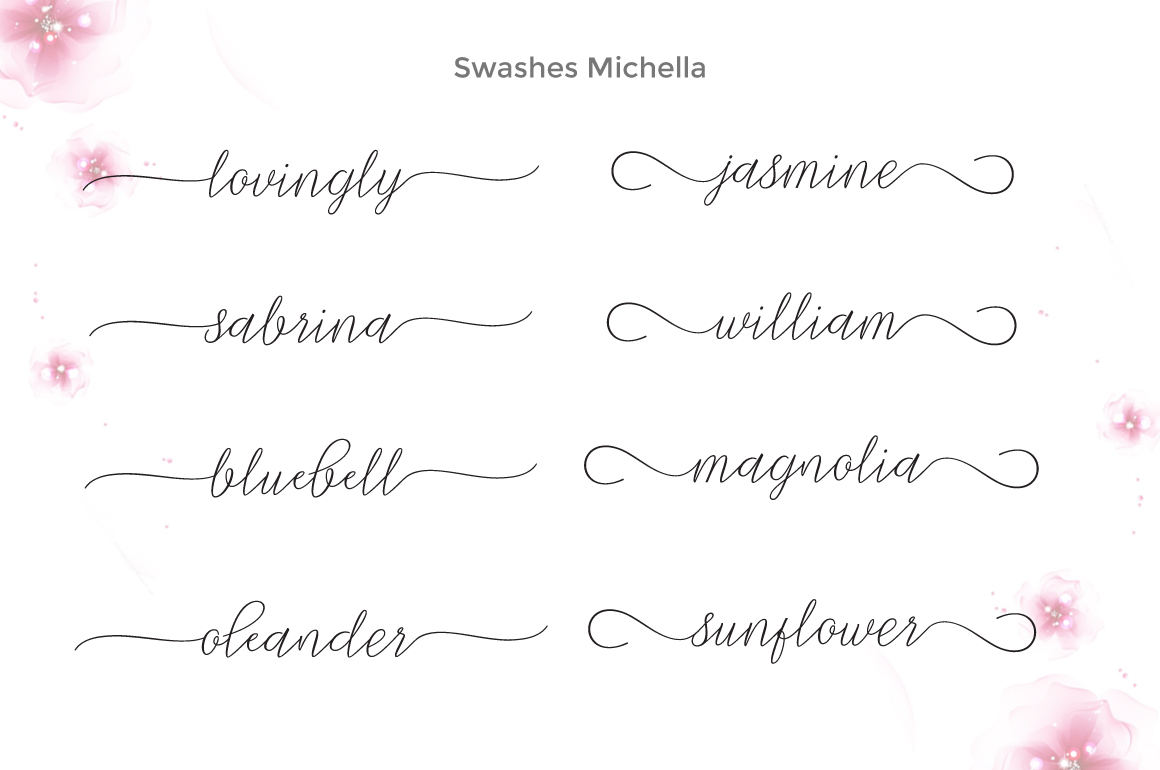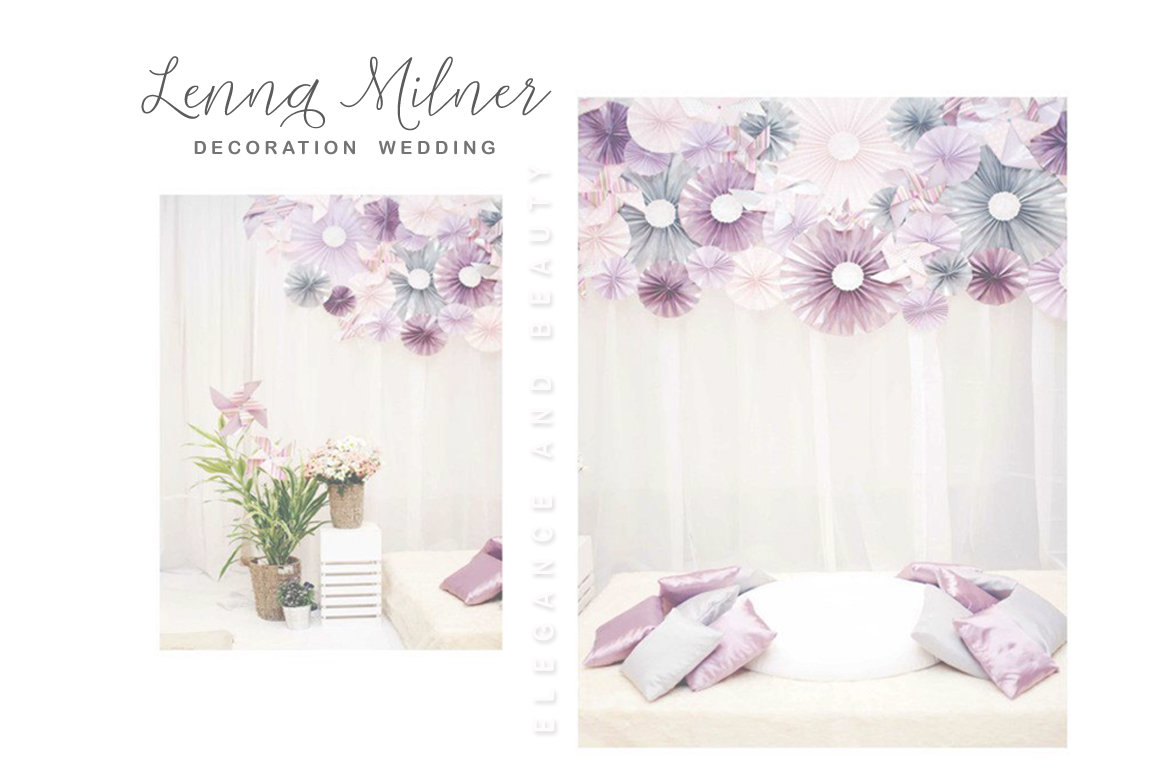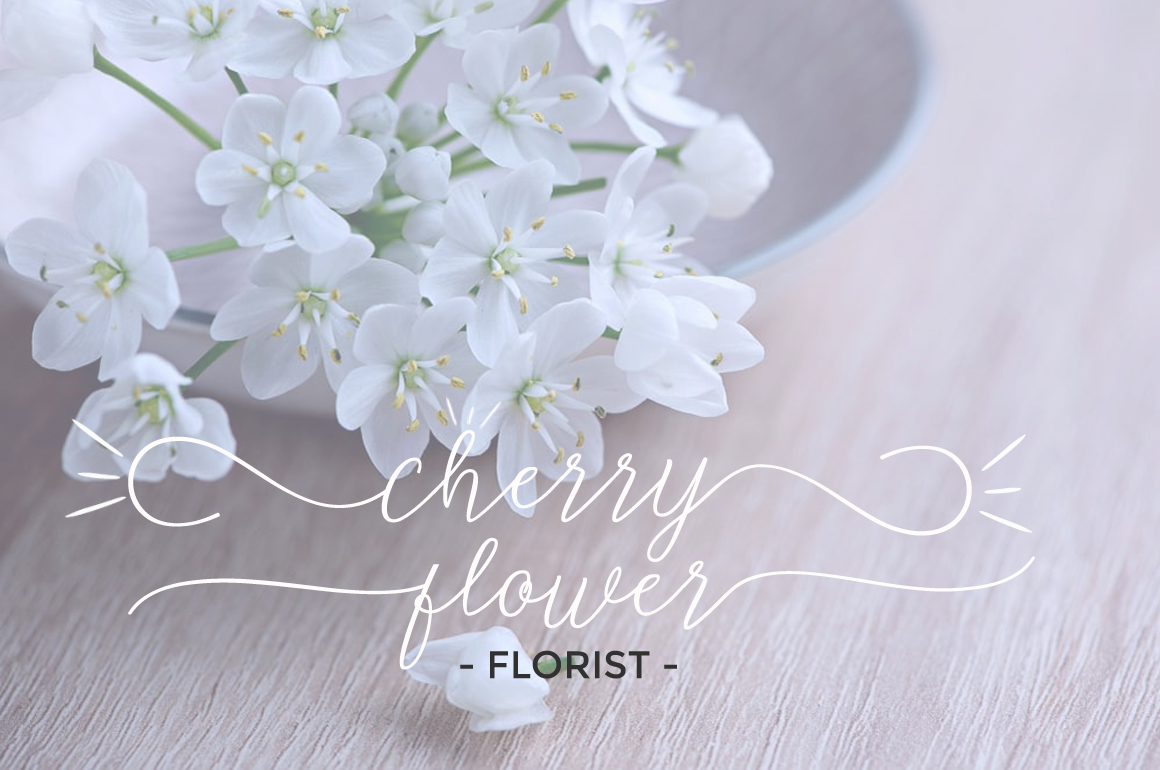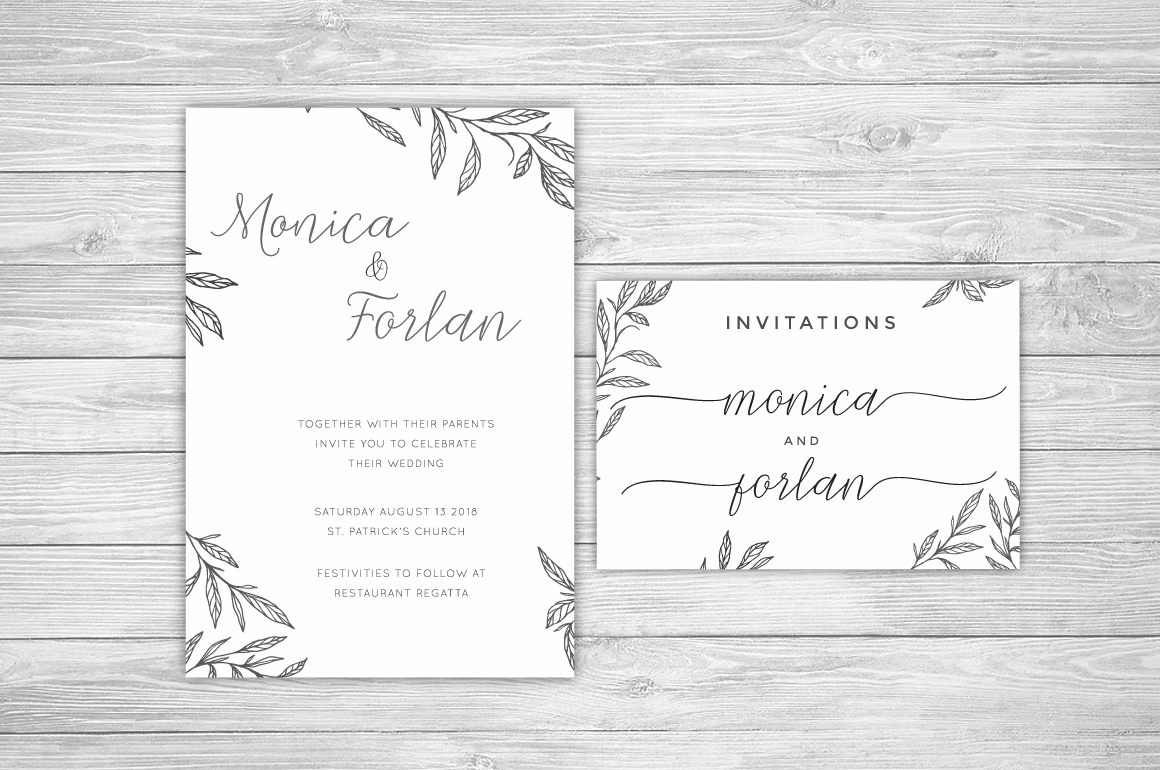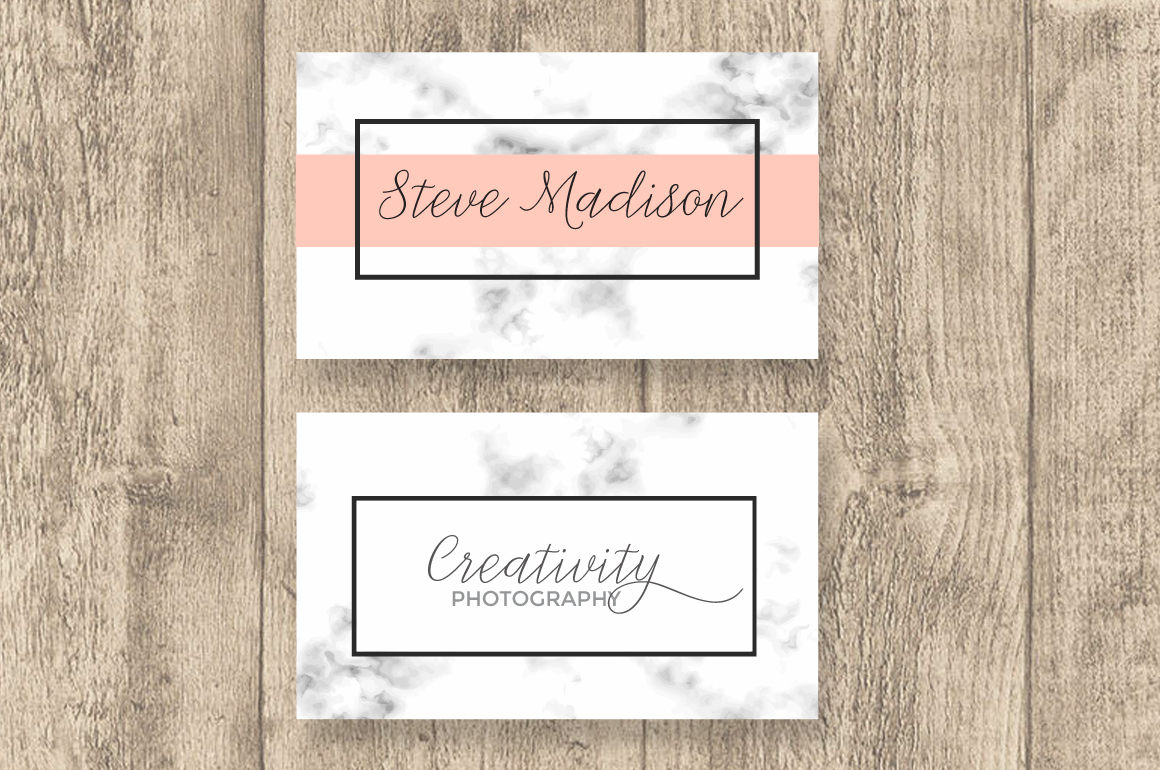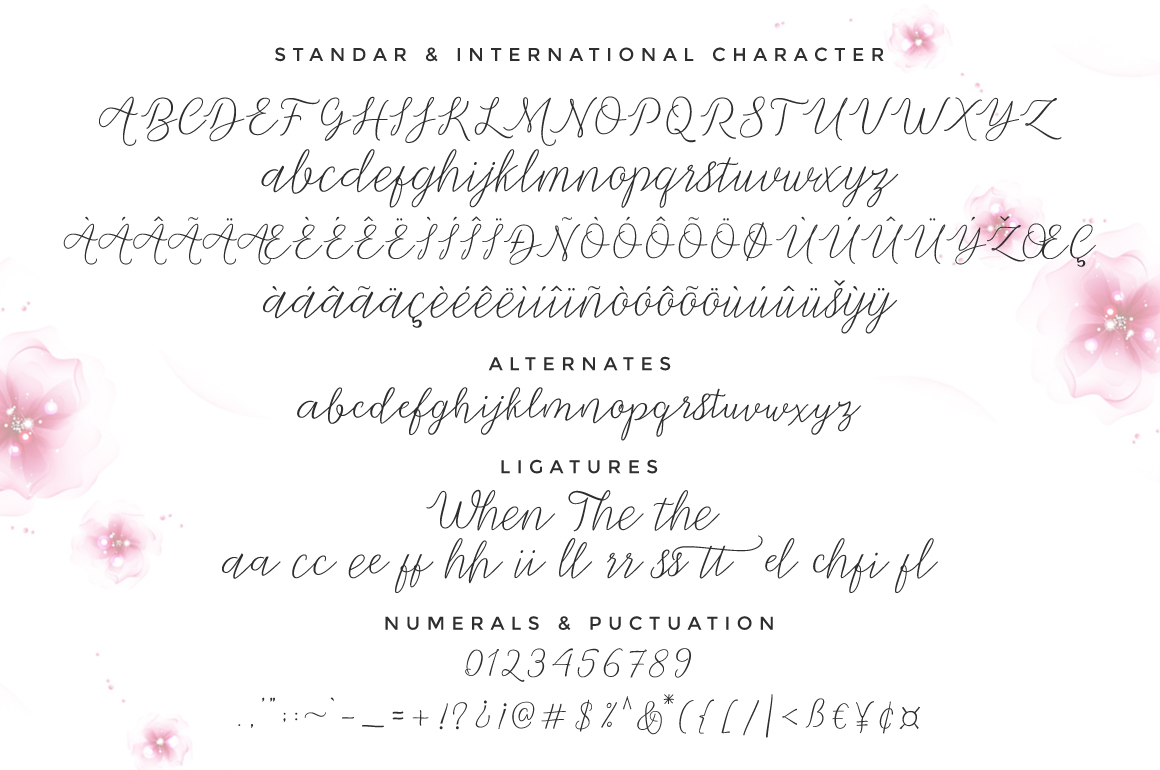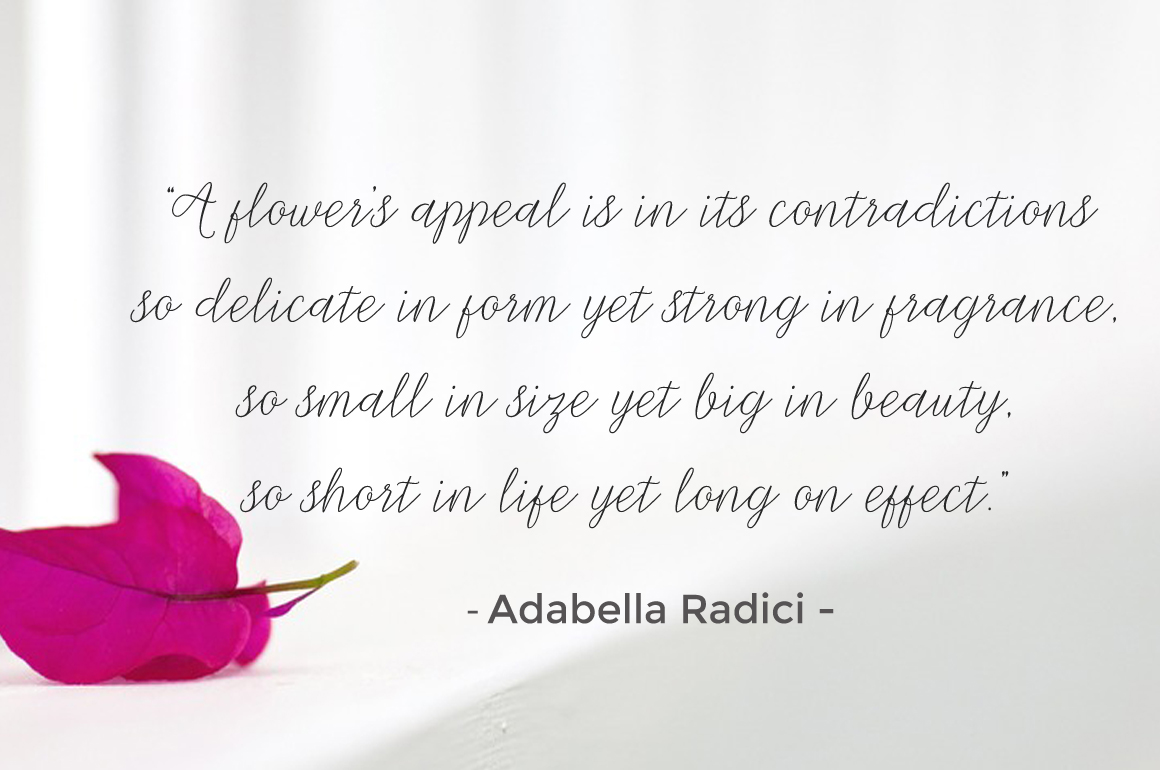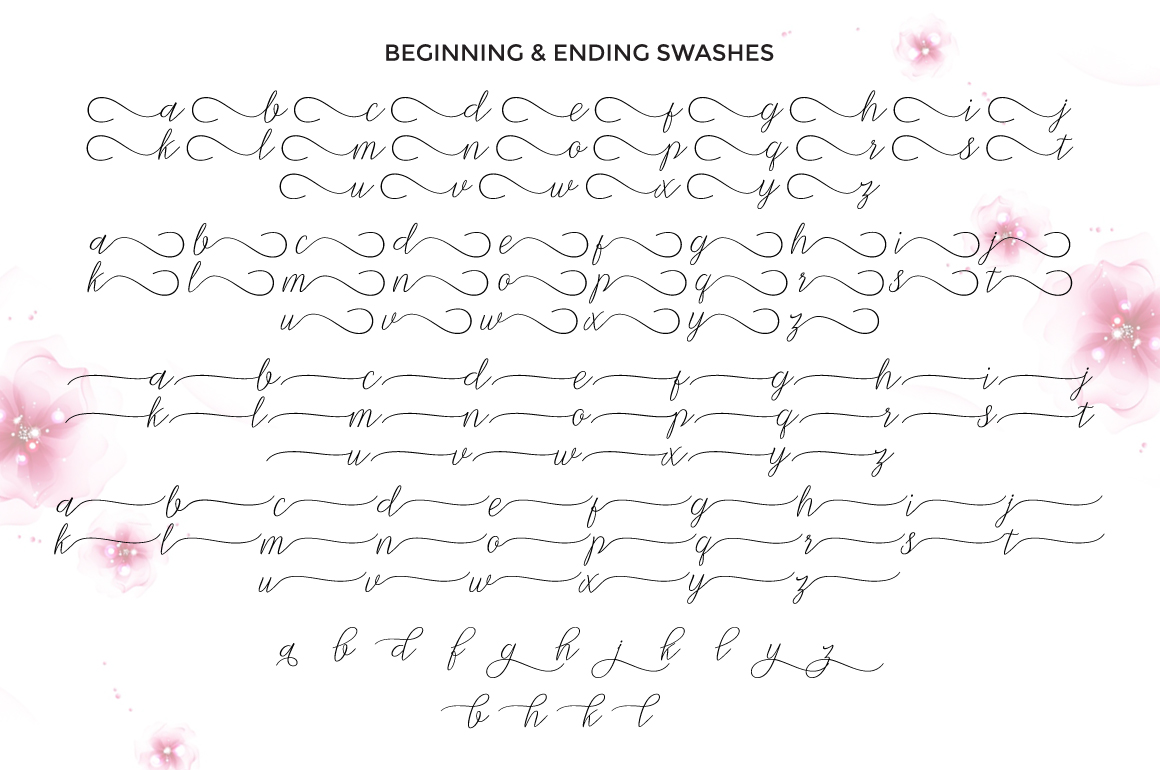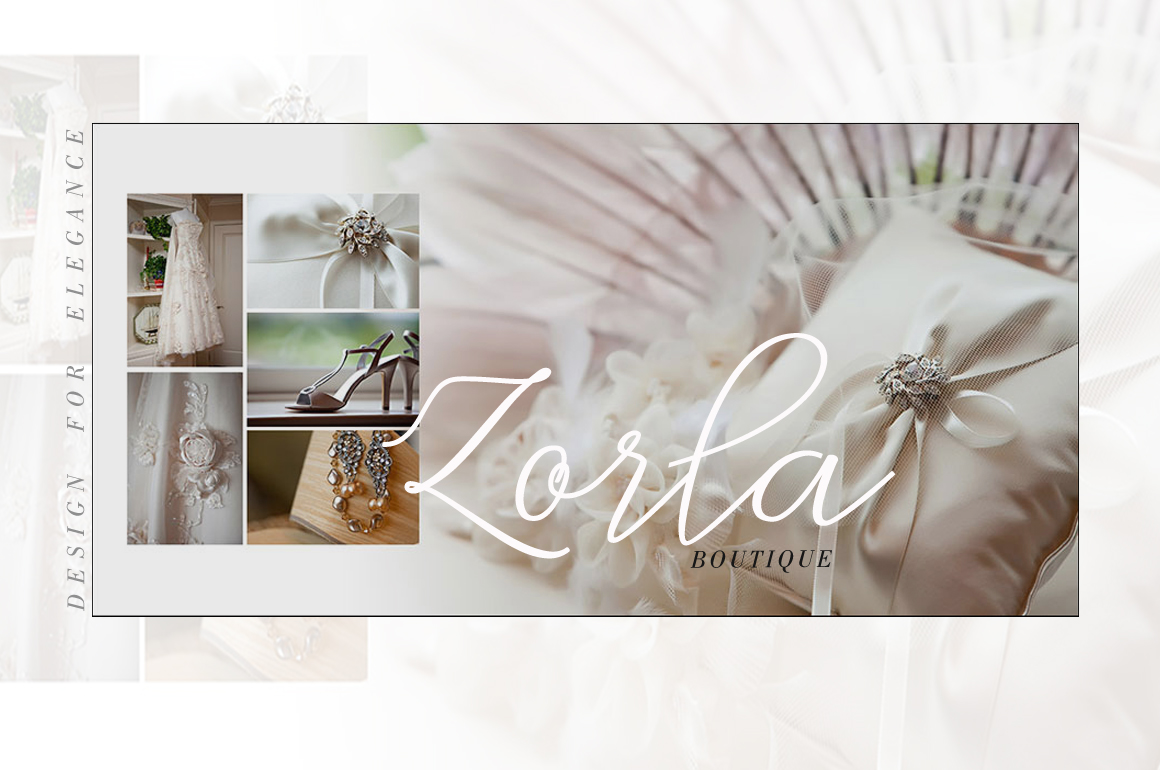
Michella Font
About Michella Font
Michella is a beautiful calligraphy font with a sense of realism all nested in modern style. This font is a great way to give your print collateral a handcrafted appeal.